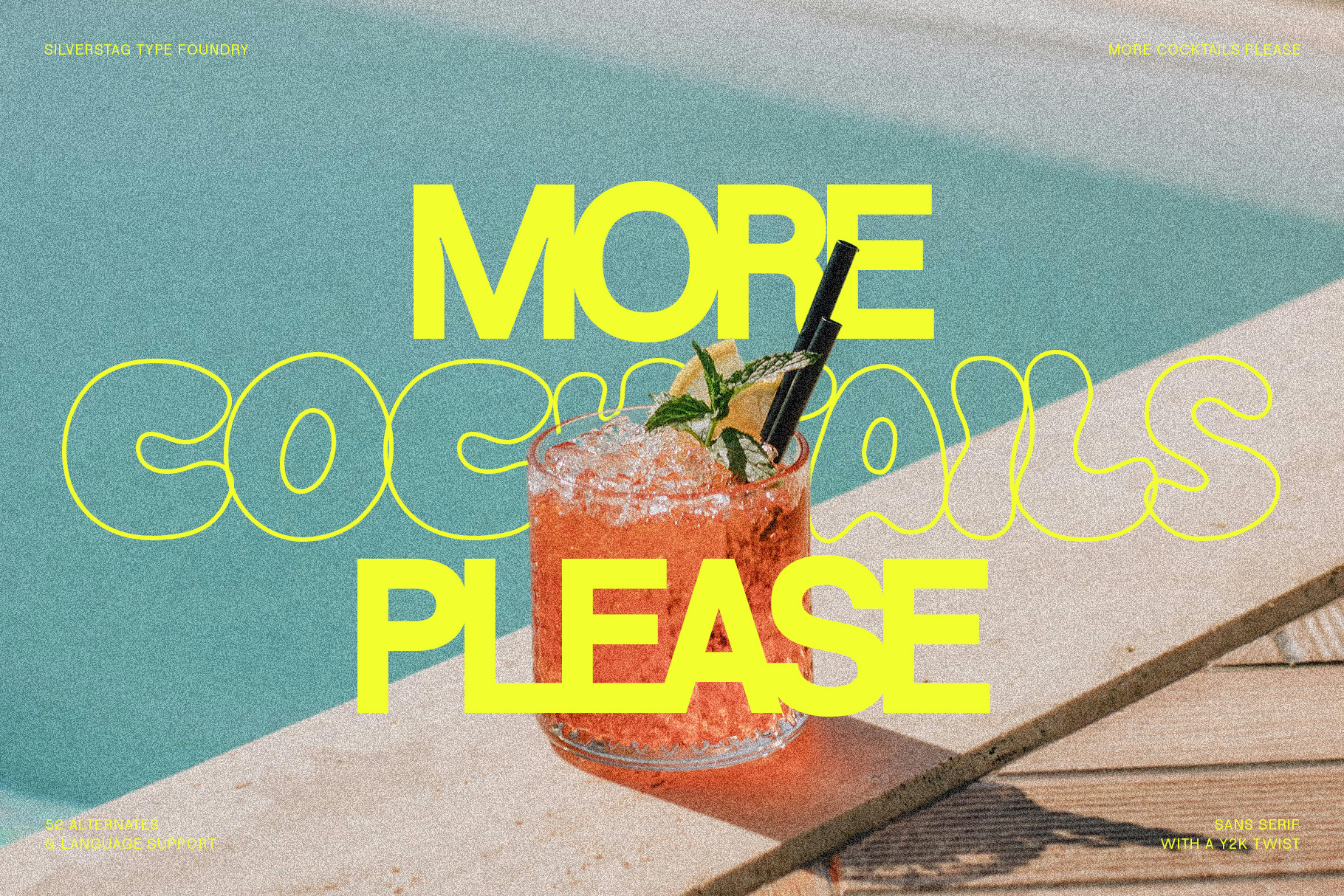
More Cocktails Please Y2K Funky Font
Introducing More Cocktails Please, a captivating font that encapsulates the vibrant spirit of the Y2K era. Inspired by the bold, playful typography of the time, this font exudes an irresistible charm that will add a touch of retro nostalgia to your designs.
With two unique sets of uppercase alternates, More Cocktails Please offers a multitude of creative possibilities. The main font features a bold sans serif style, while the alternates are hand-drawn and feature funky, curvy bubbly letters. This combination of styles creates a dynamic and eye-catching typography that is sure to capture attention.
More Cocktails Please boasts over 52 ligatures and alternates, allowing you to personalize your lettering and add a touch of individuality to your designs. These decorative elements add visual interest and enhance the overall appeal of your projects.
With its extensive language support spanning over 90 languages, More Cocktails Please is a versatile font suitable for a wide range of design applications. Whether you're crafting captivating headlines, designing bold logos, or creating eye-catching marketing materials, More Cocktails Please will seamlessly complement your vision.
Embrace the retro funk of More Cocktails Please and let it transform your designs into works of art.
Love the style of the product but the bubble letters are packaged only as "alternates" for the regular font which makes them more difficult to design with and are often unusable in a lot of situations.